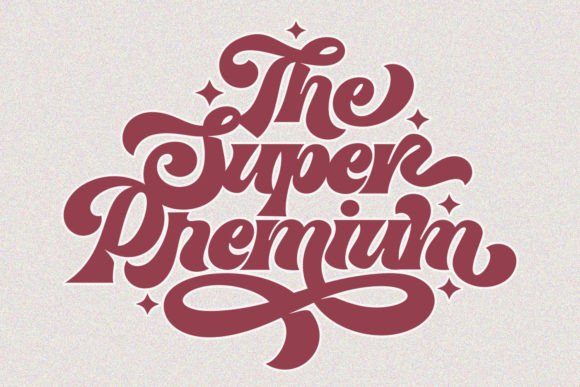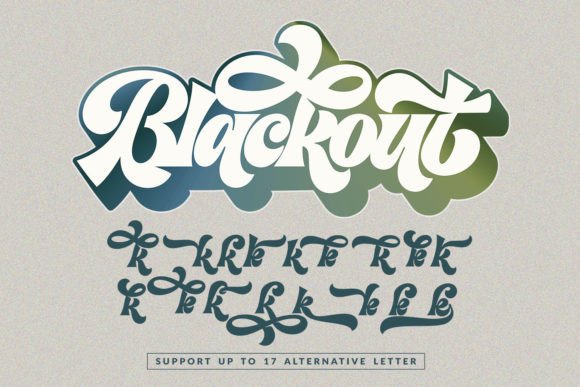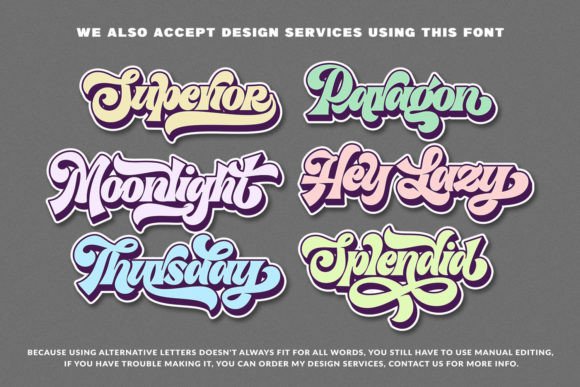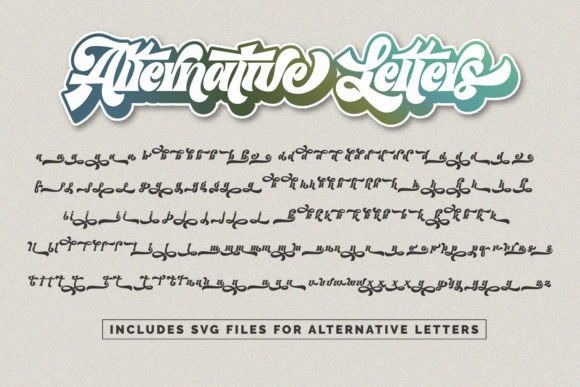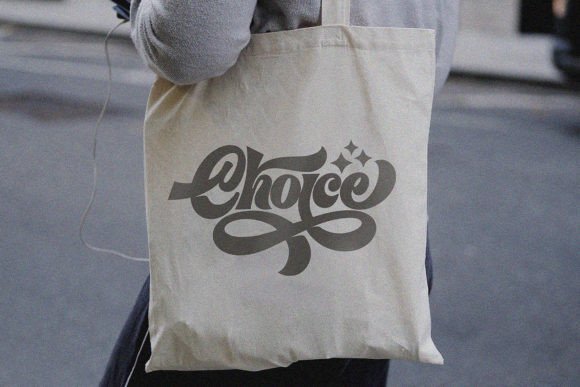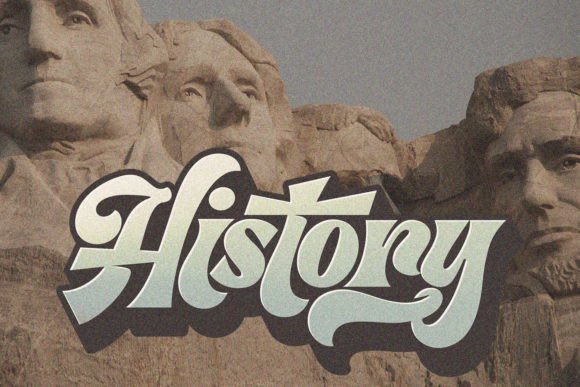
Gallantic Font: A Timeless Vintage Retro Font for Modern Designs
In the world of typography, fonts play a crucial role in conveying the tone and aesthetic of a design. For designers and crafters looking to add a touch of nostalgia and boldness to their creations, the Gallantic font is an excellent choice. Inspired by retro typography and lettering from the 1970s and 1980s, Gallantic is a vintage retro font that combines classic style with modern boldness.
The Inspiration Behind Gallantic
The Gallantic font draws inspiration from the iconic typography and lettering of the 1970s and 1980s. During this era, typography was bold, playful, and experimental. The fonts of this period were often used in posters, advertisements, and album covers, and were characterized by their unique and eye-catching styles. Gallantic font captures the essence of this era, reviving the classic typography and lettering styles that were popular during this time.
Key Features of Gallantic Font
Gallantic font boasts several key features that make it a versatile and valuable addition to any designer’s font library. Some of its notable features include:
- Bold Typography Style: Gallantic font features a bold typography style that is perfect for creating eye-catching designs. Its bold strokes and thick lines make it ideal for headlines, titles, and other prominent text elements.
- Vintage Retro Aesthetic: The font’s vintage retro aesthetic is reminiscent of the 1970s and 1980s, making it perfect for designs that require a nostalgic or retro feel.
- High Versatility: Gallantic font is highly versatile and can be used for a wide range of design projects, from posters and flyers to digital graphics and craft projects.
Uses of Gallantic Font
Gallantic font is a versatile font that can be used for various design projects. Some of the most popular uses of Gallantic font include:
- Posters and Flyers: The font’s bold typography style and vintage retro aesthetic make it perfect for creating eye-catching posters and flyers.
- Digital Graphics: Gallantic font can be used to create stunning digital graphics, including social media graphics, blog headers, and website elements.
- Craft Projects: The font’s unique style makes it ideal for craft projects, such as handmade cards, scrapbooking, and other paper crafts.
- Branding and Advertising: Gallantic font can be used to create bold and eye-catching branding and advertising materials, including logos, billboards, and magazine ads.
Why Choose Gallantic Font?
There are several reasons why designers and crafters should choose Gallantic font for their design projects. Some of the benefits of using Gallantic font include:
- Unique Style: Gallantic font has a unique and distinctive style that sets it apart from other fonts.
- High Readability: The font’s bold typography style and clear lettering make it highly readable, even at small sizes.
In conclusion, Gallantic font is a timeless vintage retro font that is perfect for designers and crafters looking to add a touch of nostalgia and boldness to their creations. Its unique style, high versatility, and bold typography style make it an excellent choice for a wide range of design projects. Whether you’re creating posters, digital graphics, or craft projects, Gallantic font is a wonderful asset to your font library.